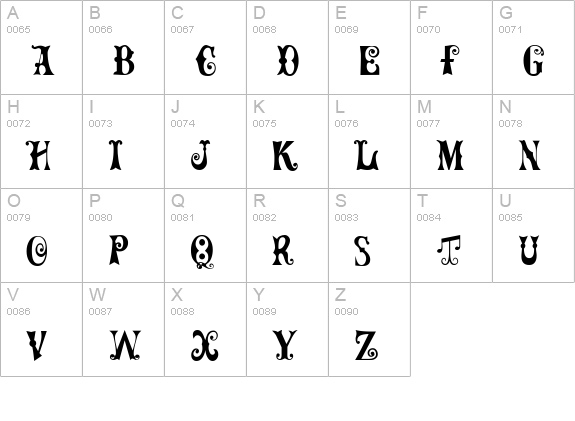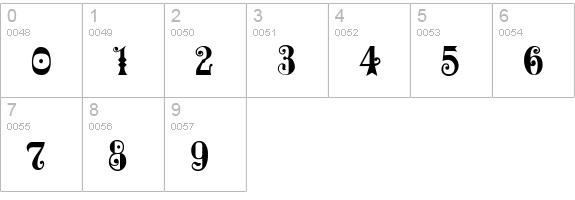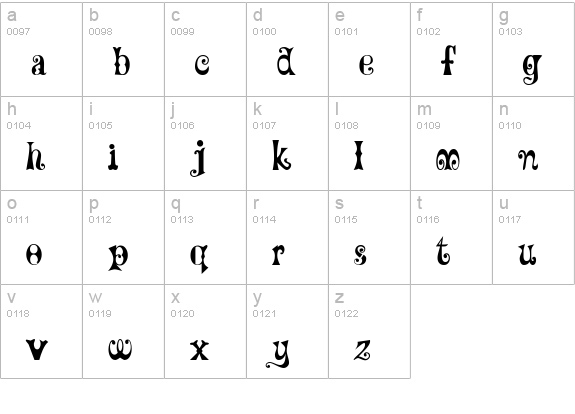
Frilly Font Details
Introducing the elegant and captivating Frilly font, a delightful typeface that exudes charm and sophistication. With its intricate swirls and delicate curves, Frilly is perfect for adding a touch of whimsy and grace to your designs. Whether you're working on invitations, logos, or branding projects, this font is sure to make a statement. The best part? Frilly font is completely free to download at FontsMarket.com. Embrace the beauty and versatility of Frilly in your creative endeavors and let your projects shine with its unique flair. Elevate your designs with this exquisite font today and watch as it brings a touch of enchantment to your work.